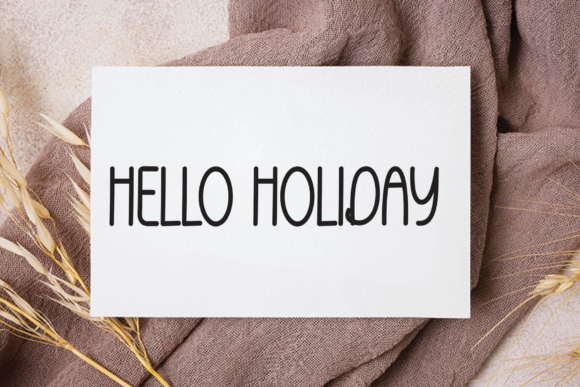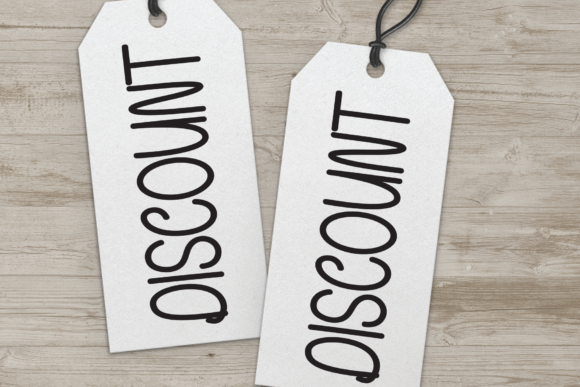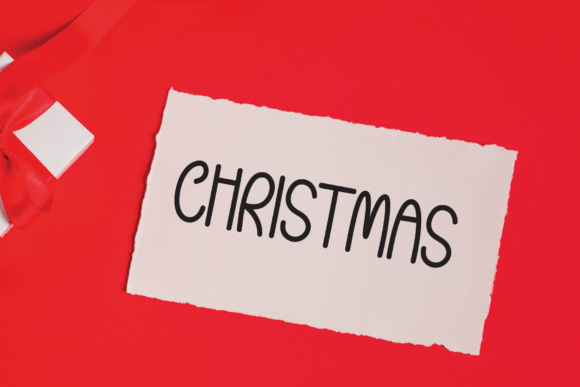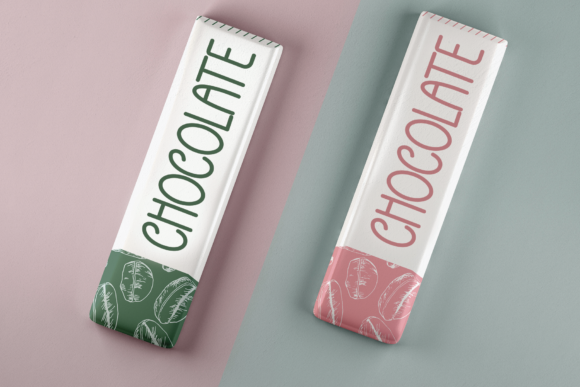
Babe Font: The Sweet and Quirky Handwritten Font for Your Design Needs
Are you looking for a font that can add a fun and friendly touch to your design projects? Look no further than the Babe Font! This sweet and quirky handwritten font is perfect for designers and crafters who want to add a personal touch to their work. In this article, we’ll take a closer look at the Babe Font, its features, and how you can use it to elevate your designs.
What is Babe Font?
Babe Font is a soft and charming handwritten font that is designed to bring a smile to your face. Its quirky and playful style makes it perfect for a wide range of design projects, from greeting cards and invitations to social media graphics and blog posts. This font is all about adding a personal touch to your work, making it feel more approachable and friendly.
Key Features of Babe Font
- Sweet and Quirky Style: Babe Font has a unique and charming style that is sure to capture the attention of your audience.
- Handwritten Look: This font has a beautiful handwritten look that adds a personal touch to your designs.
- Soft and Gentle: The soft and gentle style of Babe Font makes it perfect for designs that require a friendly and approachable tone.
- Easy to Read: Despite its quirky style, Babe Font is easy to read, making it perfect for body text and headings.
How to Use Babe Font in Your Designs
Babe Font is a versatile font that can be used in a wide range of design projects. Here are some ideas to get you started:
- Greeting Cards and Invitations: Use Babe Font to create beautiful and personalized greeting cards and invitations for special occasions.
- Social Media Graphics: Add a fun and friendly touch to your social media graphics with Babe Font.
- Blog Posts: Use Babe Font to add a personal touch to your blog posts and make them more engaging.
- Branding and Packaging: Use Babe Font to create a unique and memorable brand identity for your business.
Tips for Using Babe Font Effectively
Here are some tips for using Babe Font effectively in your designs:
- Use it with a Simple Background: Babe Font looks best with a simple background that doesn’t distract from the text.
- Experiment with Colors: Try out different colors to find the one that works best with Babe Font.
- Mix it with Other Fonts: Babe Font can be paired with other fonts to create a unique and interesting look.
- Use it for Headings and Titles: Babe Font is perfect for headings and titles, but it can also be used for body text.
In conclusion, Babe Font is a sweet and quirky handwritten font that can add a fun and friendly touch to your design projects. Its soft and gentle style makes it perfect for a wide range of designs, from greeting cards and invitations to social media graphics and blog posts. With its easy-to-read style and versatile design, Babe Font is a great addition to any designer’s toolkit.